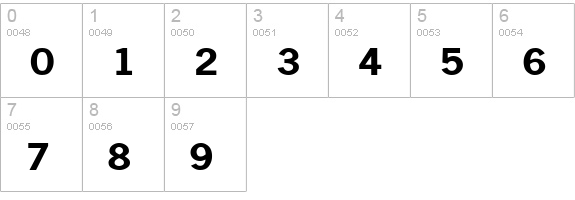
NewsGothicExt-B is a sleek and modern sans-serif font that exudes professionalism and sophistication. With its clean lines and sharp edges, this font is perfect for a wide range of design projects, from editorial layouts to branding materials. The bold and eye-catching appearance of NewsGothicExt-B makes it ideal for headlines and titles that demand attention. What sets NewsGothicExt-B apart is that it is available for free download at FontsMarket.com. This means that designers and creatives can easily access this versatile font without any cost, making it a valuable addition to any font library. Whether you're working on a print publication, a website design, or a branding project, NewsGothicExt-B is sure to elevate your work with its modern aesthetic and timeless appeal. Download NewsGothicExt-B today and take your designs to the next level.